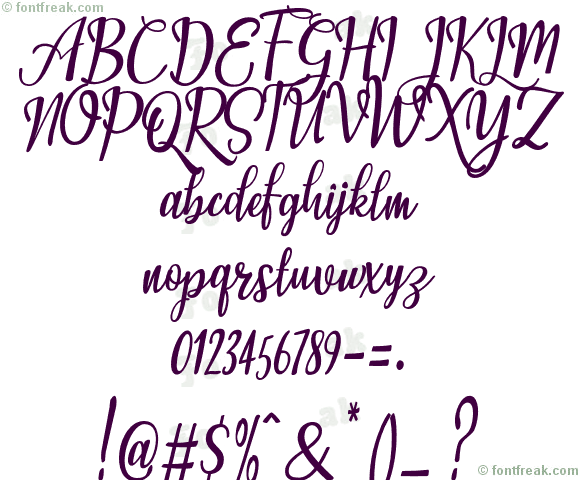
MichelleStineScript
About MichelleStineScript
MichelleStineScript is a beautifully crafted script font designed by Aqeela Studio, perfect for those looking to add a touch of elegance to their projects. This font falls under the handwritten category, characterized by its fluid and graceful strokes that evoke a sense of warmth and personal touch. The design features a moderate stroke weight with gentle contrast, allowing each letter to flow seamlessly into the next, creating a cohesive and inviting appearance. The spacing is well-balanced, enhancing readability while maintaining an artistic flair.
This font is ideally suited for a variety of applications. It shines in wedding invitations, where its romantic style can set the tone for special occasions. Additionally, MichelleStineScript is an excellent choice for branding materials, such as logos and signage for boutique shops, capturing attention with its unique charm. It also works wonderfully for restaurant menus, adding a sophisticated and inviting feel that can enhance the dining experience. Content creators will find it useful for social media graphics and blog headers, where it can create an engaging visual narrative.
The target audience for MichelleStineScript includes graphic designers looking for versatile typefaces, small business owners aiming to elevate their branding, and content creators who want to add an artistic touch to their digital projects.
Author Aqeela Studio